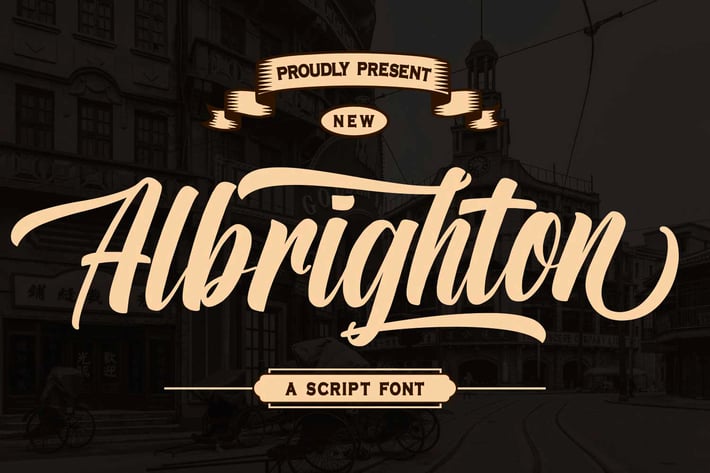
Albrighton - Vintage Font
Introducing Albrighton Font – a captivating blend of retro and vintage script handwriting that brings a nostalgic charm to your crafting projects. Perfect for enthusiasts of all levels, this font adds a timeless flair to your creations, whether you're delving into the art of crafting, exploring the intricate world of embroidery, or celebrating the seasons of spring, summer, Christmas, Thanksgiving, autumn, and fall. With its classic appeal and versatile nature, Albrighton Font is your essential tool for infusing every project with a touch of old-school elegance.
Elevate your crafting experience to new heights with Albrighton Font. Embrace the allure of retro aesthetics and vintage script as you embark on your creative journey. Whether you're crafting for the joy of spring and summer or preparing for the festive seasons of Christmas and Thanksgiving, this font offers endless possibilities. Seamlessly compatible with Cricut machines, Albrighton Font empowers you to transform your ideas into stunning reality. Don't settle for ordinary – let Albrighton Font be the key to unlocking your crafting potential.
Join the vintage revolution and make a statement with Albrighton Font. From intricate designs to personalized creations, this font is your gateway to crafting excellence. Let your imagination run wild as you explore the endless opportunities offered by retro-inspired script handwriting. Whether you're a seasoned crafter or a beginner, Albrighton Font invites you to discover the magic of crafting in a whole new light. Don't wait any longer – download Albrighton Font today and embark on a journey of creativity and nostalgia!
Elevate your crafting experience to new heights with Albrighton Font. Embrace the allure of retro aesthetics and vintage script as you embark on your creative journey. Whether you're crafting for the joy of spring and summer or preparing for the festive seasons of Christmas and Thanksgiving, this font offers endless possibilities. Seamlessly compatible with Cricut machines, Albrighton Font empowers you to transform your ideas into stunning reality. Don't settle for ordinary – let Albrighton Font be the key to unlocking your crafting potential.
Join the vintage revolution and make a statement with Albrighton Font. From intricate designs to personalized creations, this font is your gateway to crafting excellence. Let your imagination run wild as you explore the endless opportunities offered by retro-inspired script handwriting. Whether you're a seasoned crafter or a beginner, Albrighton Font invites you to discover the magic of crafting in a whole new light. Don't wait any longer – download Albrighton Font today and embark on a journey of creativity and nostalgia!